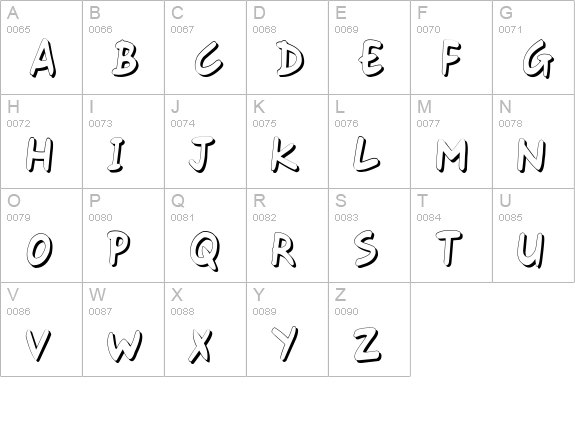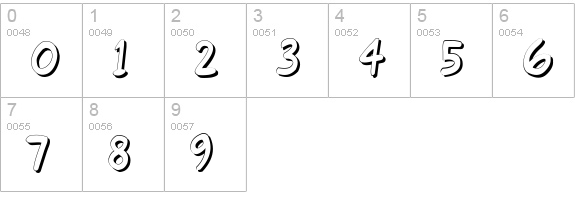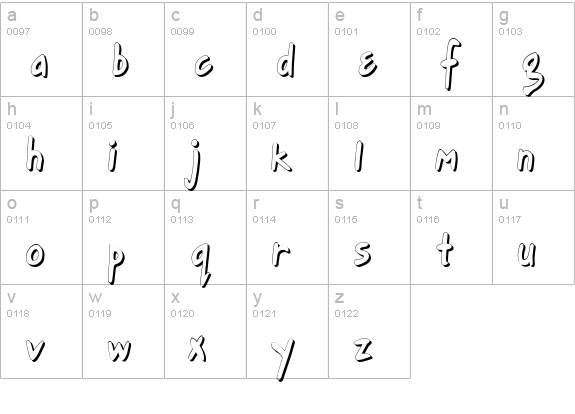
Gort's Fair Hand UprightShadow Font Details
Gort's Fair Hand UprightShadow font is a unique and elegant typeface that exudes sophistication and creativity. The intricate details of each letterform give a sense of craftsmanship and artistry, making it a perfect choice for projects that require a touch of refinement. This font is versatile and can be used for a wide range of design applications, from branding and logos to invitations and packaging. Its upright shadow style adds depth and dimension to the text, creating a visually appealing effect that captures the eye. Best of all, Gort's Fair Hand UprightShadow font is completely free to download at FontsMarket.com. This means that you can access this beautiful typeface at no cost, making it a valuable addition to your font library. Don't miss out on the opportunity to enhance your designs with this stunning and versatile font today!